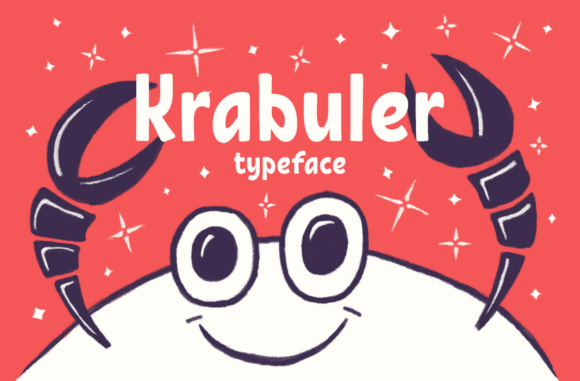
Freebie Wednesday: Krabuler Font
Krabuler Font (designed by Cyril Mikhailov) is a cheerful, hand-written typeface. If you want to add a bit of fun and a good mood to your design, Krabuler is the perfect choise!